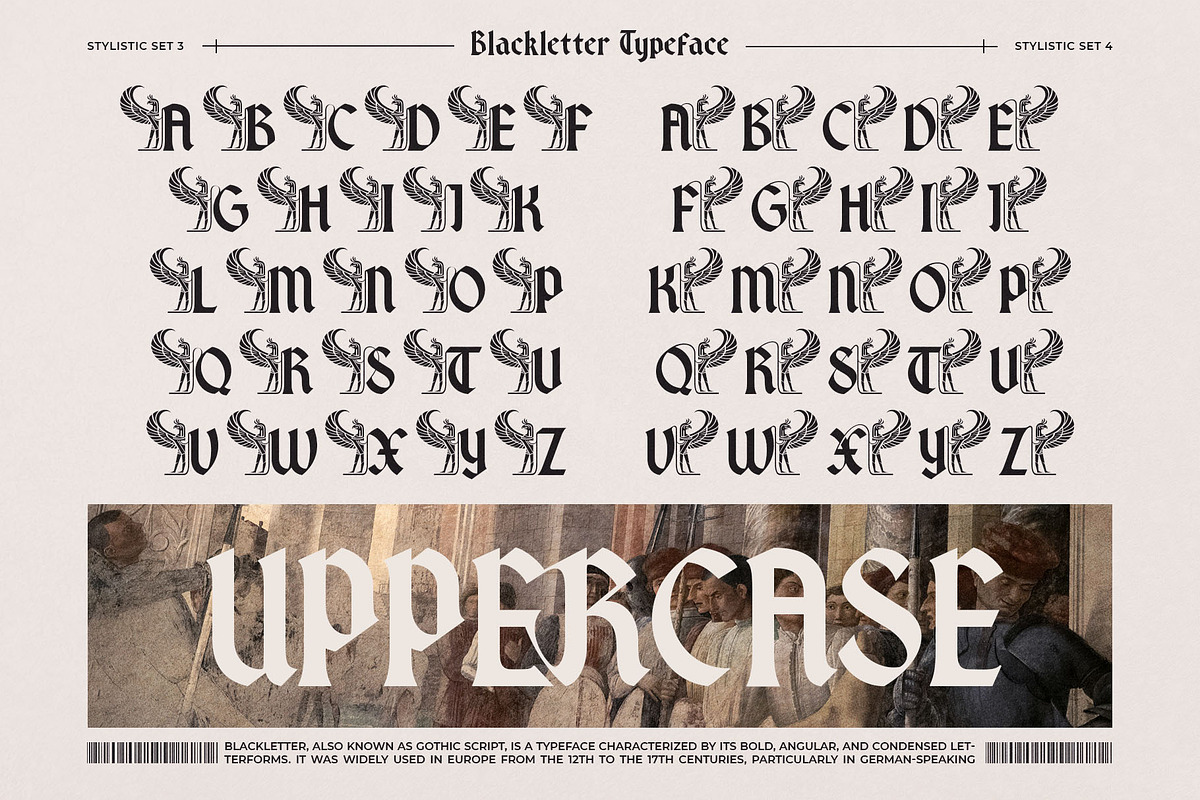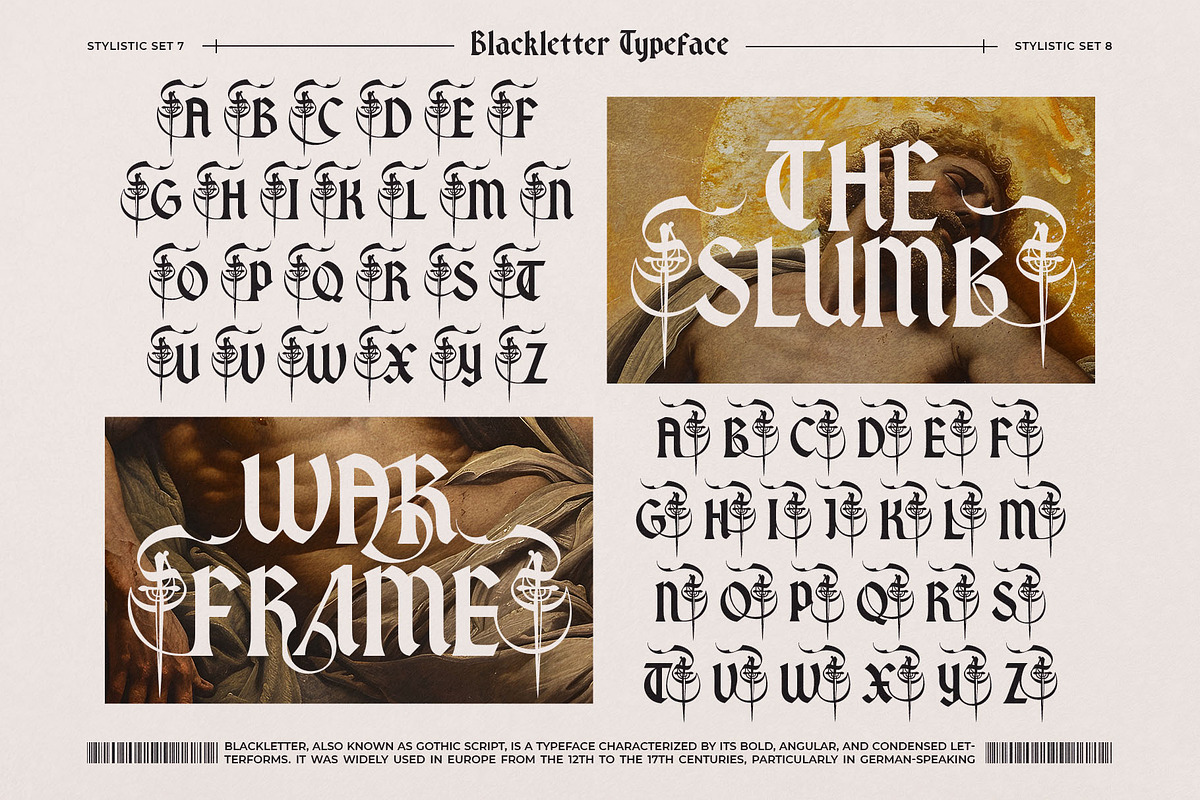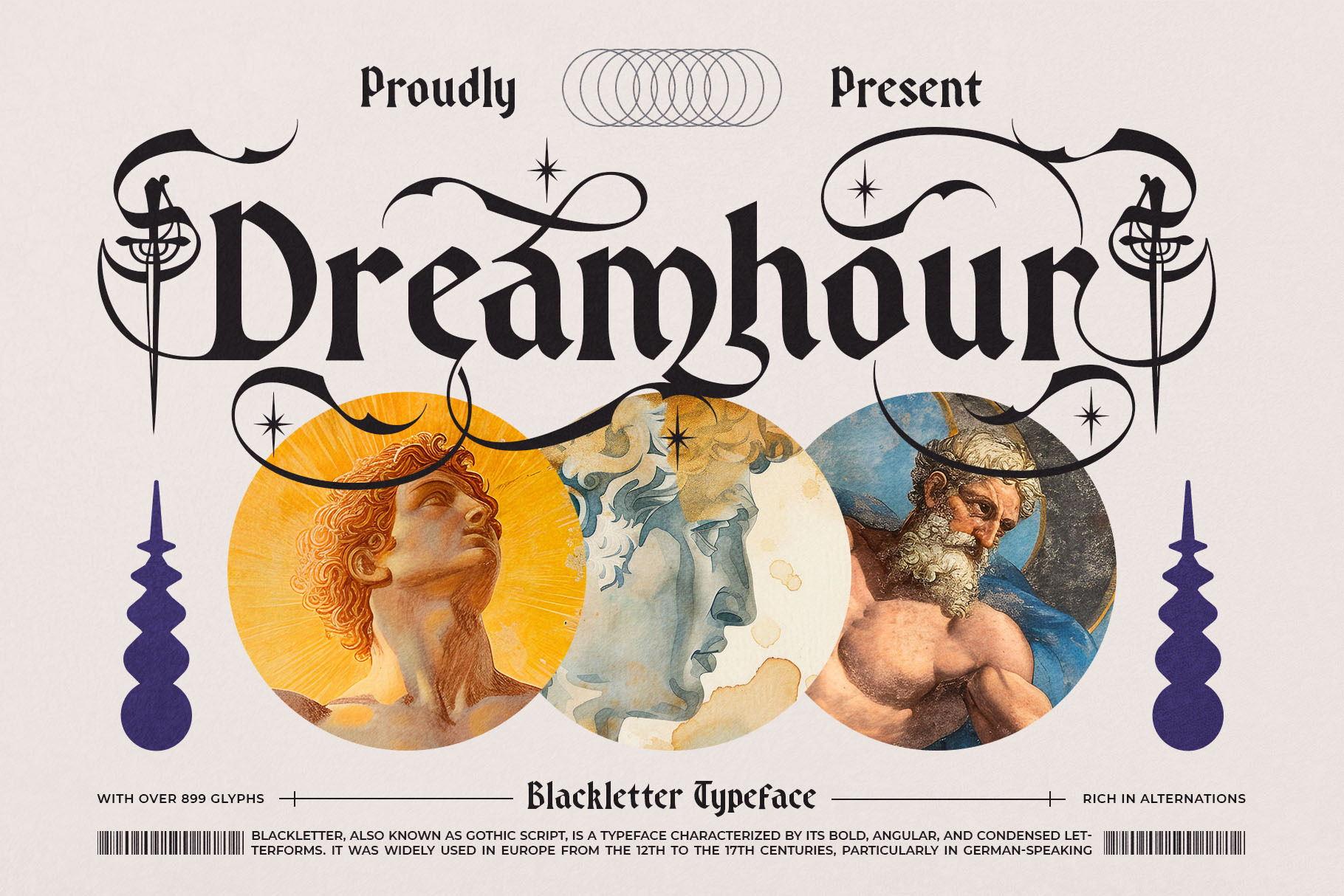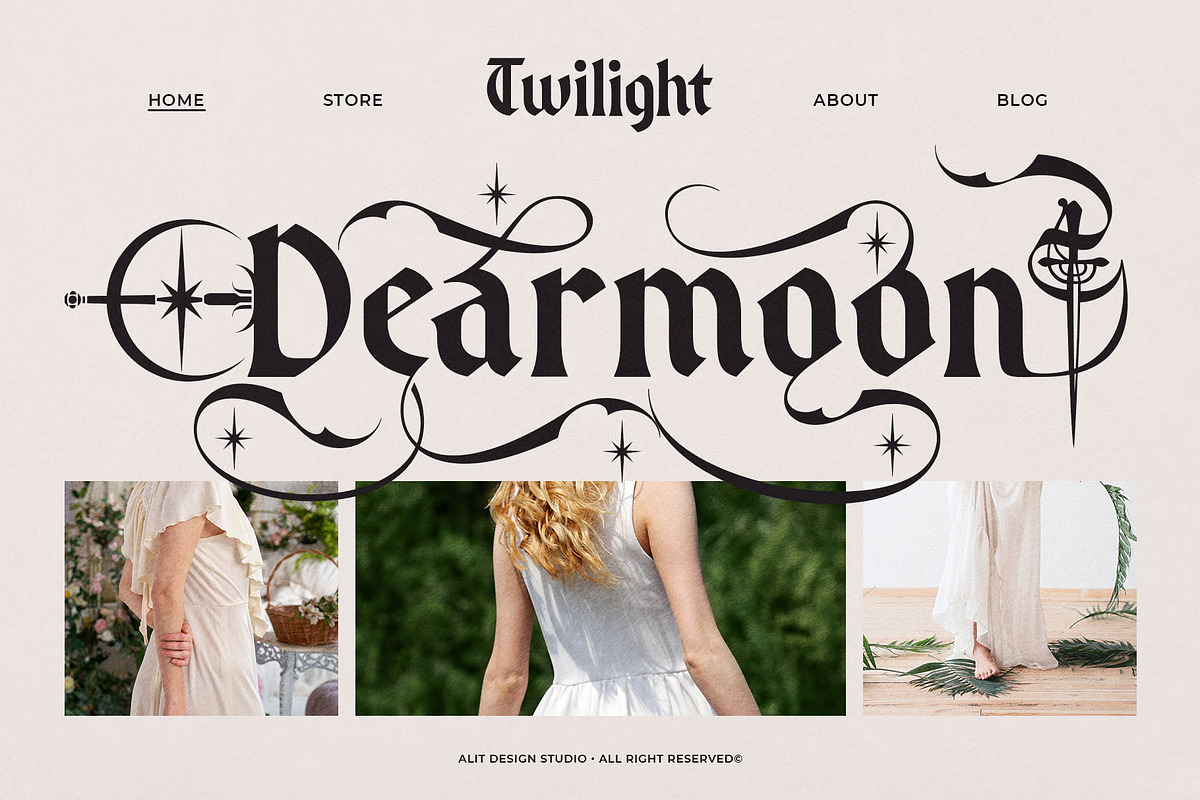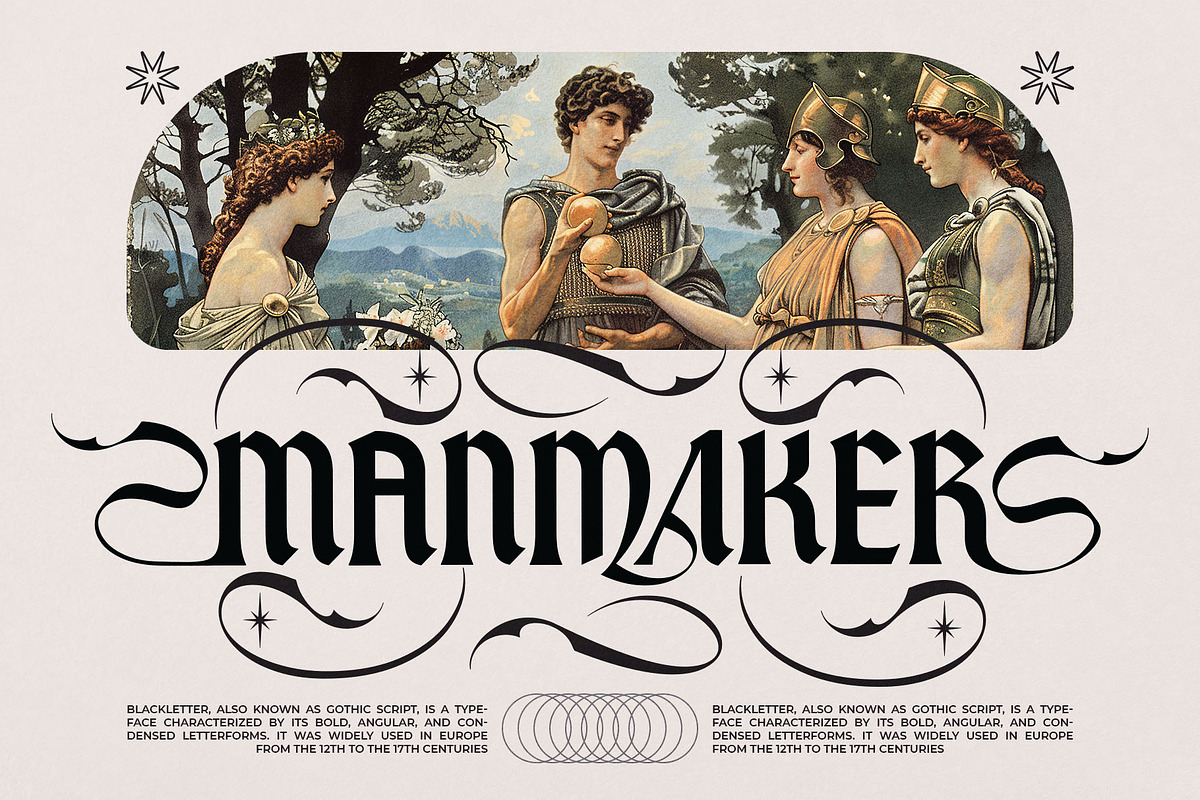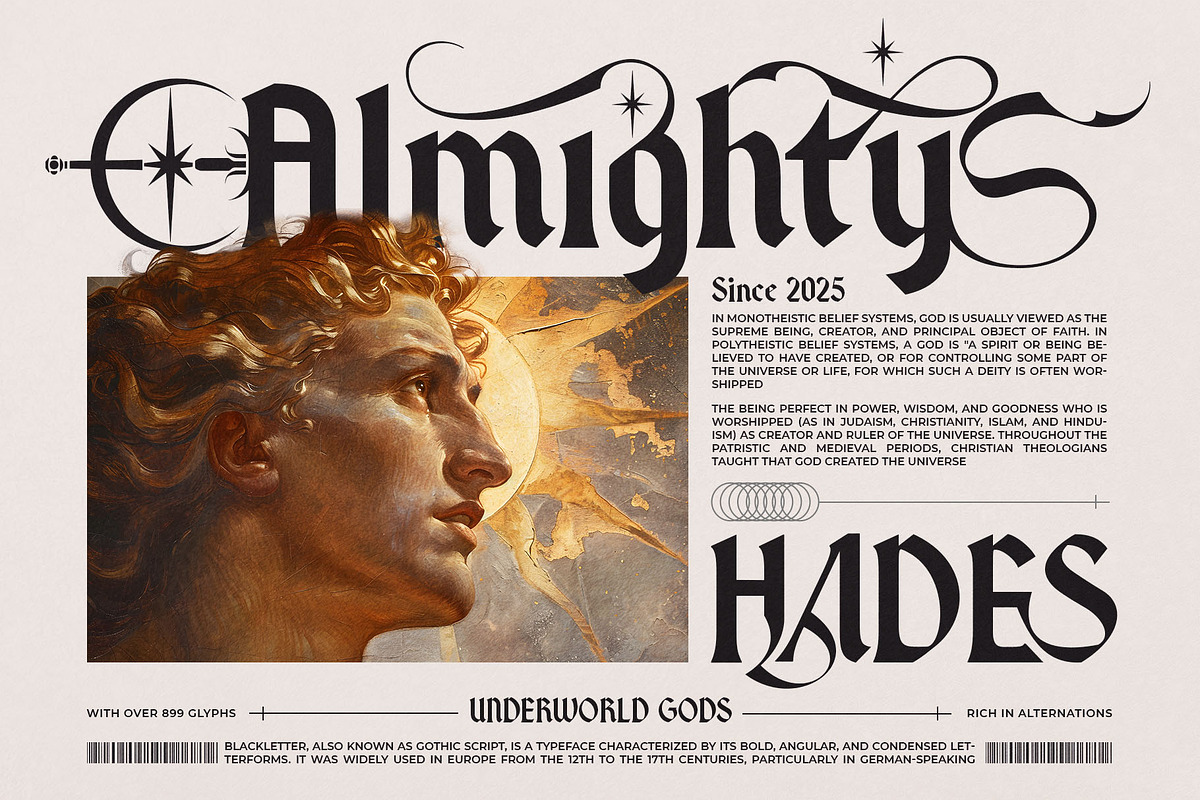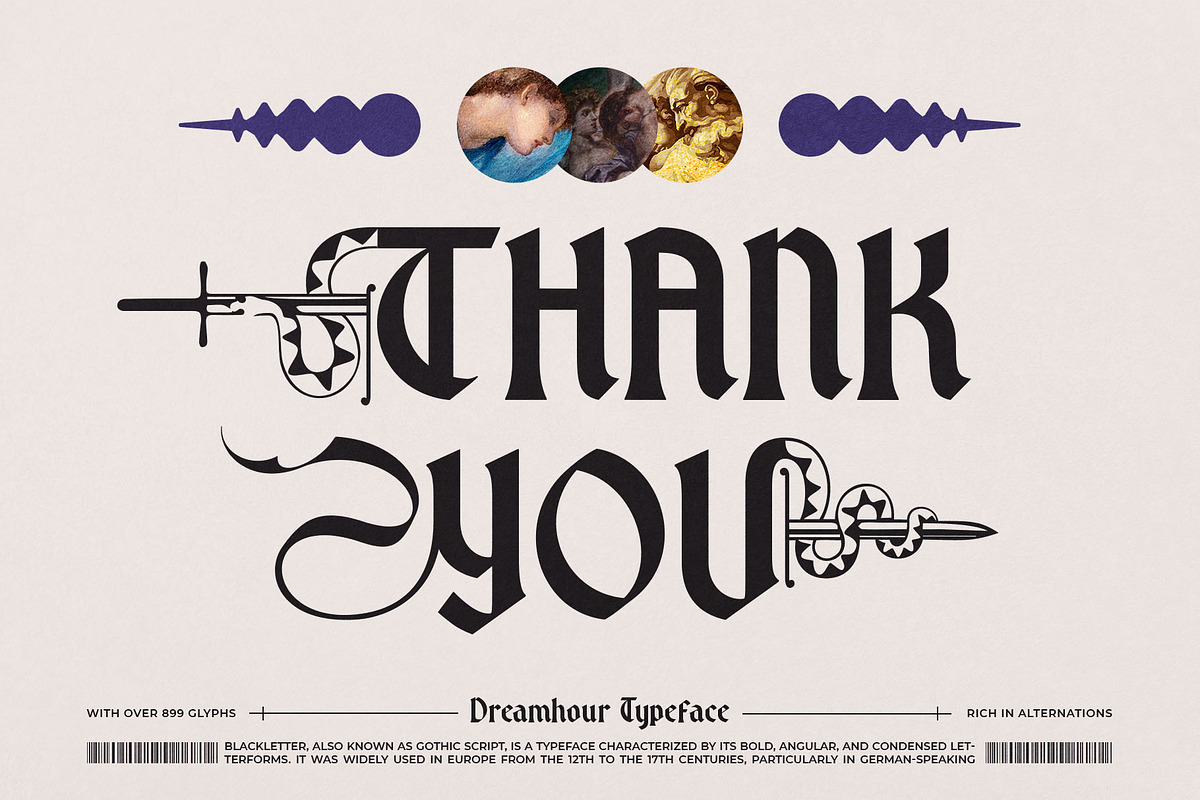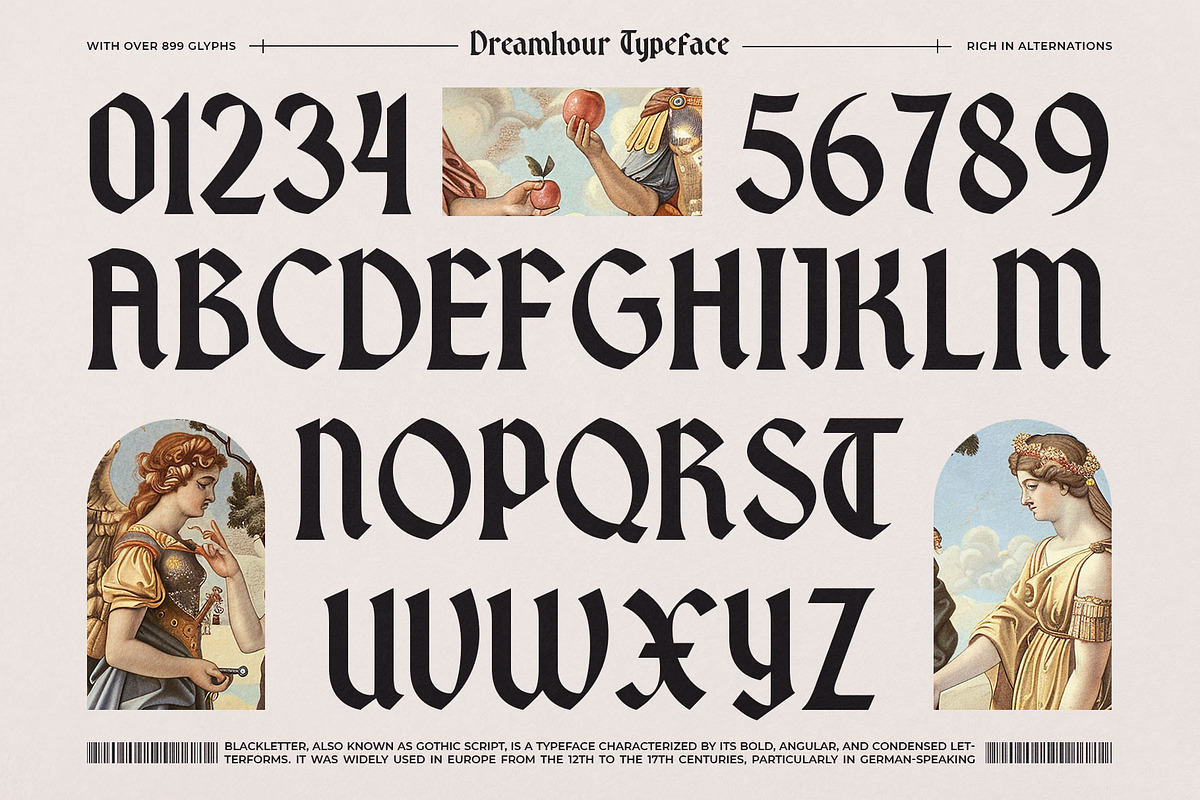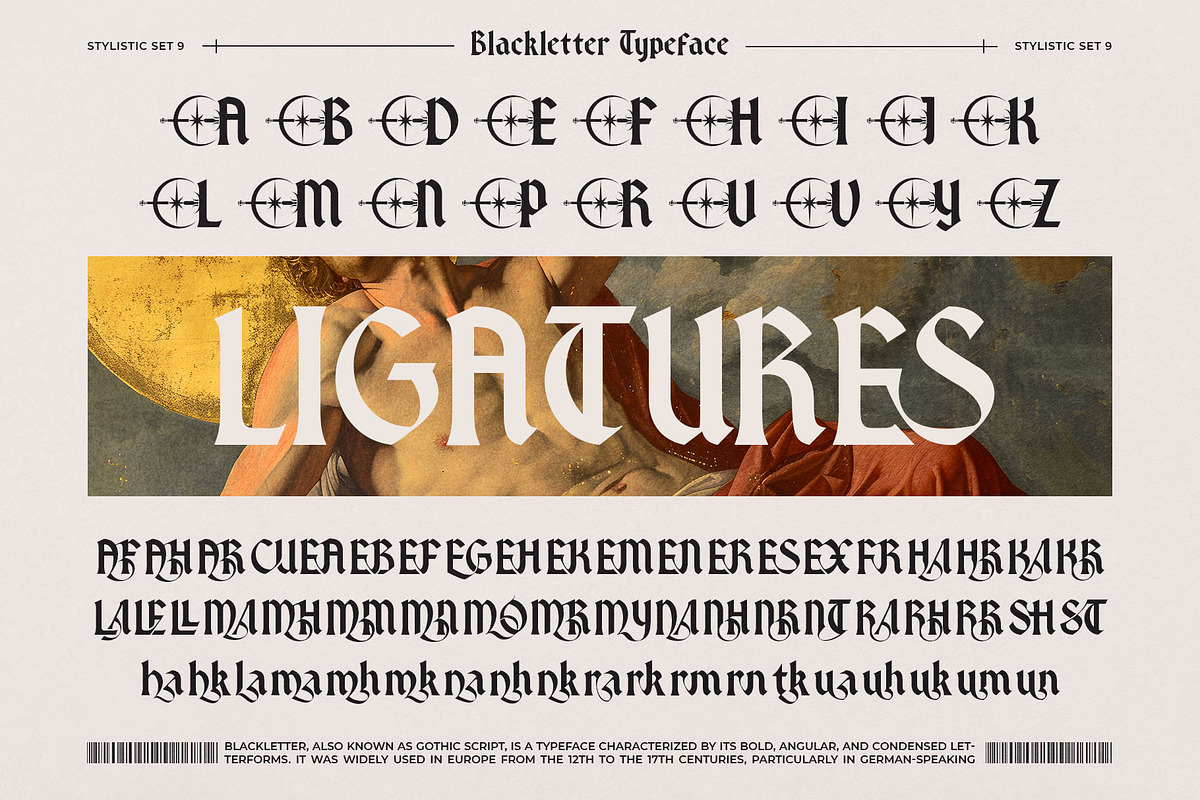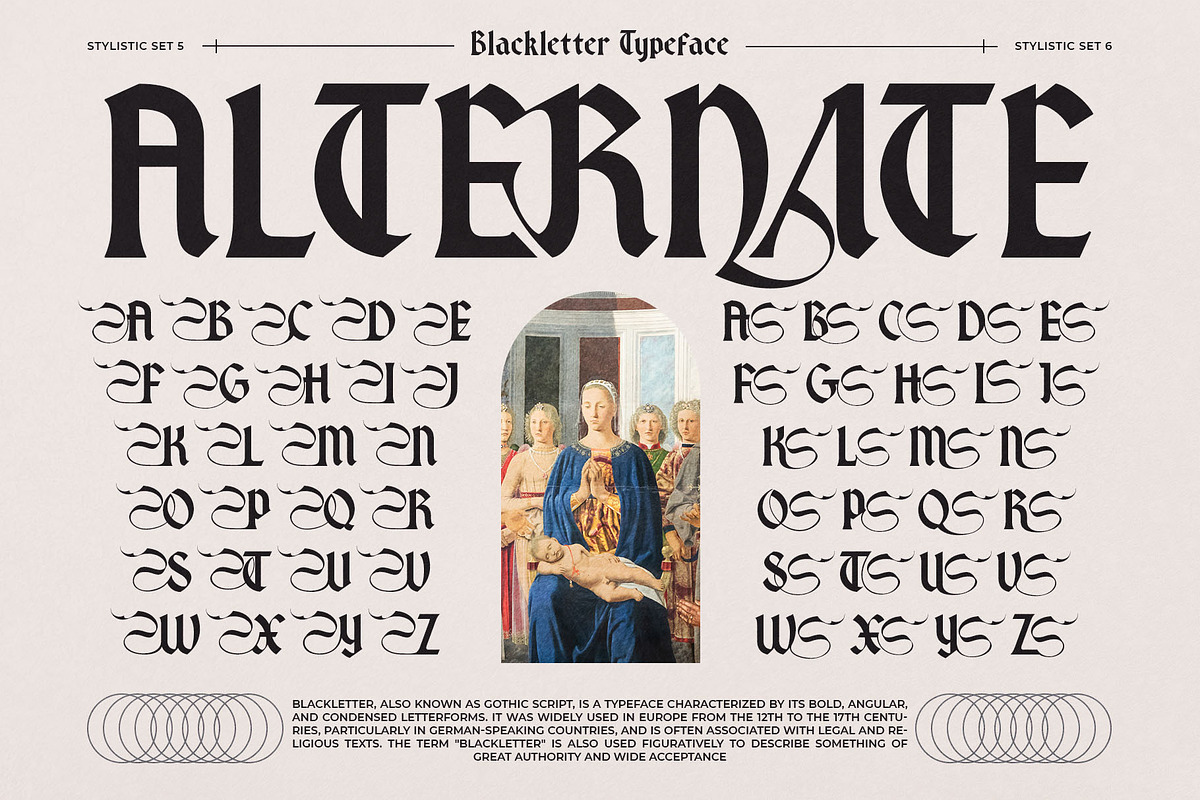
Dreamhour Typeface
A Gothic-Serif Fusion Typeface for Modern Mythmakers
Dreamhour is a richly ornamental display typeface that weaves together the expressive, rigid elegance of blackletter tradition with the clarity and balance of contemporary serif design. Created for those who dare to make a bold statement, Dreamhour is a font family that exudes confidence, mystery, and high-craft artistry.
✦ Design Concept
Dreamhour draws its strength from duality: it is both ancient and modern, both disciplined and flamboyant. The letterforms reference medieval calligraphy—such as Fraktur and Textura—reimagined through the lens of modern typographic design. Subtle curves meet sharp terminals, swashes sweep across characters, and precise geometries evoke a timeless luxury.
Perfect for editorial design, high-fashion branding, fantasy universes, ceremonial products, and avant-garde visuals, Dreamdour tells a story with every letter.
✦ What’s Inside:
899+ unique glyphs Includes a wide range of diacritics, symbols, punctuation, numerals, and multilingual support to handle diverse languages and typographic needs.
Four Stylistic Sets Toggle between typographic moods: from strong, classic capitals to highly stylized decorative alternates with extended swashes, high-contrast strokes, and flourished tails.
Ligatures & Alternate Characters Features advanced OpenType support including:
- Standard and discretionary ligatures
- Ornamental swash characters for dramatic beginnings and endings
- Stylistic alternates for personalized typographic expressions
Uppercase-focused with Lowercase Variants Designed primarily for uppercase usage in headlines and display settings, but includes elegant lowercase support for versatility.
✦ Ideal Use Cases:
- Fantasy & Mythological book covers or movie titles
- Gothic tattoo designs and ceremonial certificates
- Luxury packaging and label design (e.g. perfume, whiskey, cosmetics)
- Fashion editorials, haute couture branding, and lifestyle magazines
- Music album art, poster design, or creative portfolios
✦ Stylistic Feel & Personality:
Dreamhour feels like velvet and obsidian — rich in texture, dark in tone, and regal in presence. Every curve is deliberate; every serif, a signature. It speaks to those who create with intention and reverence for history, while still wanting to carve something entirely new.